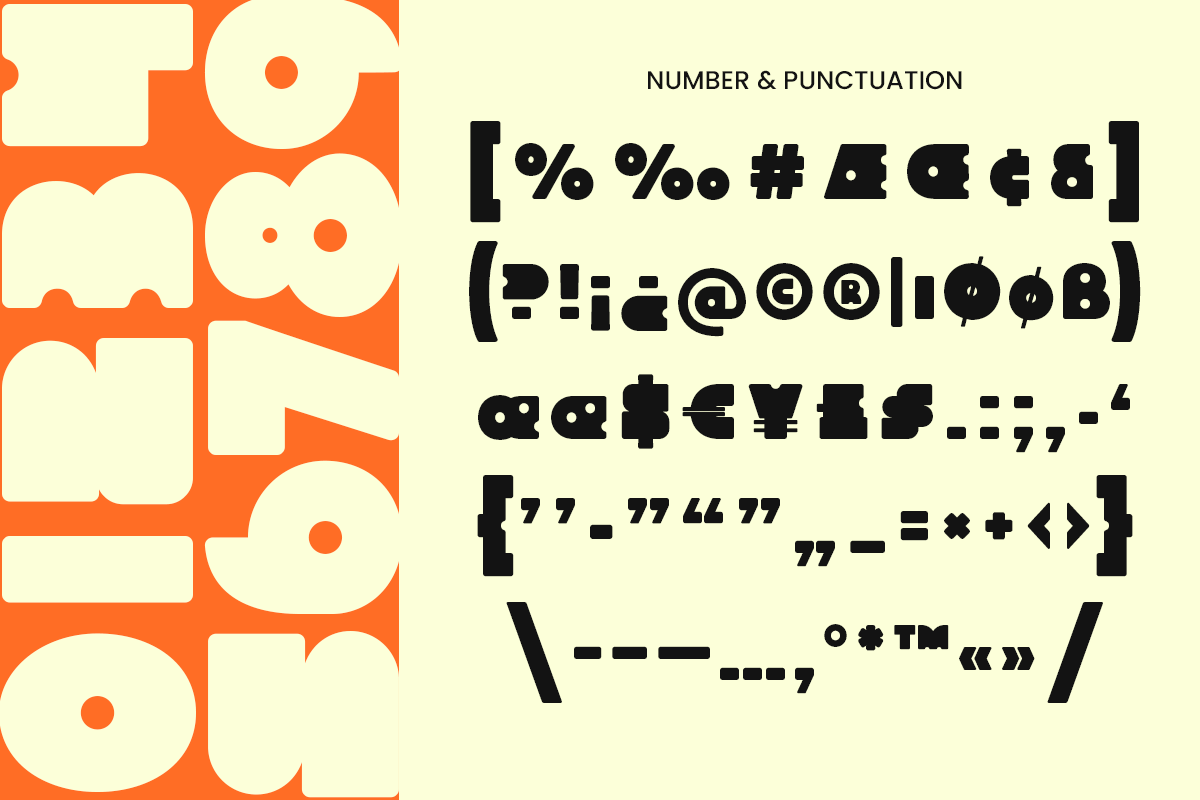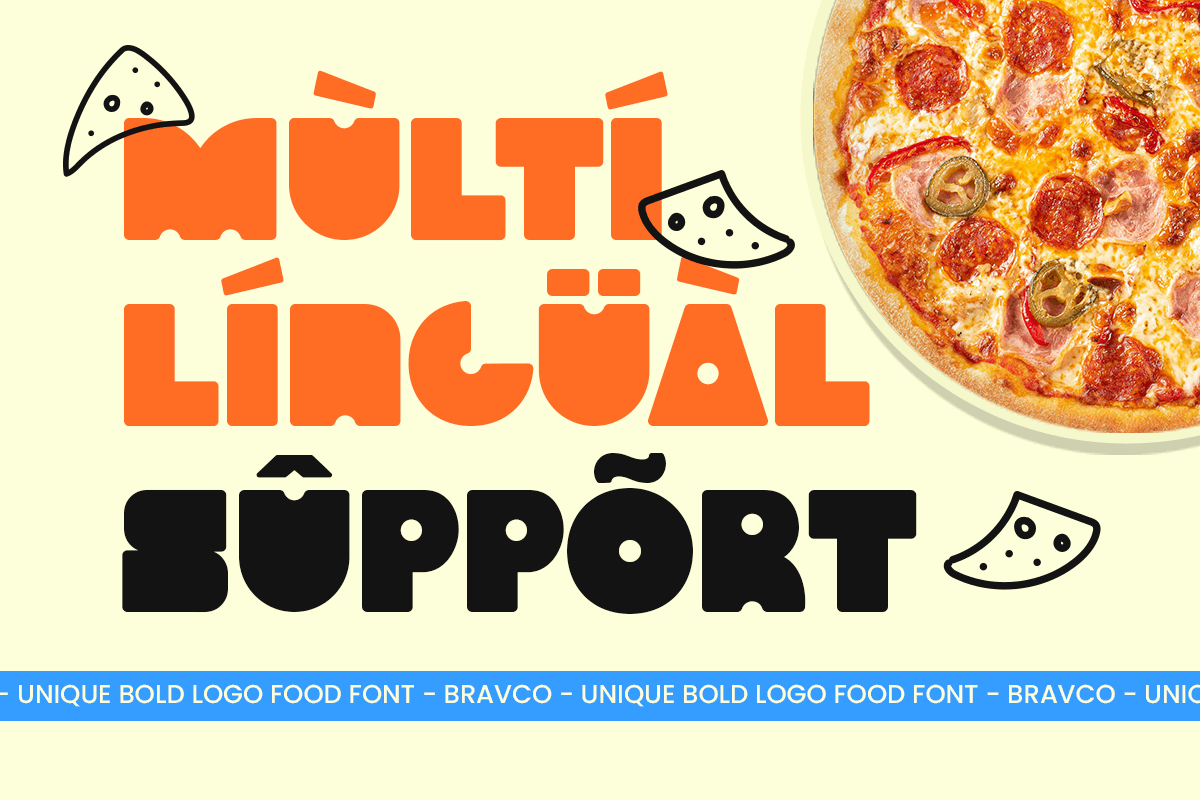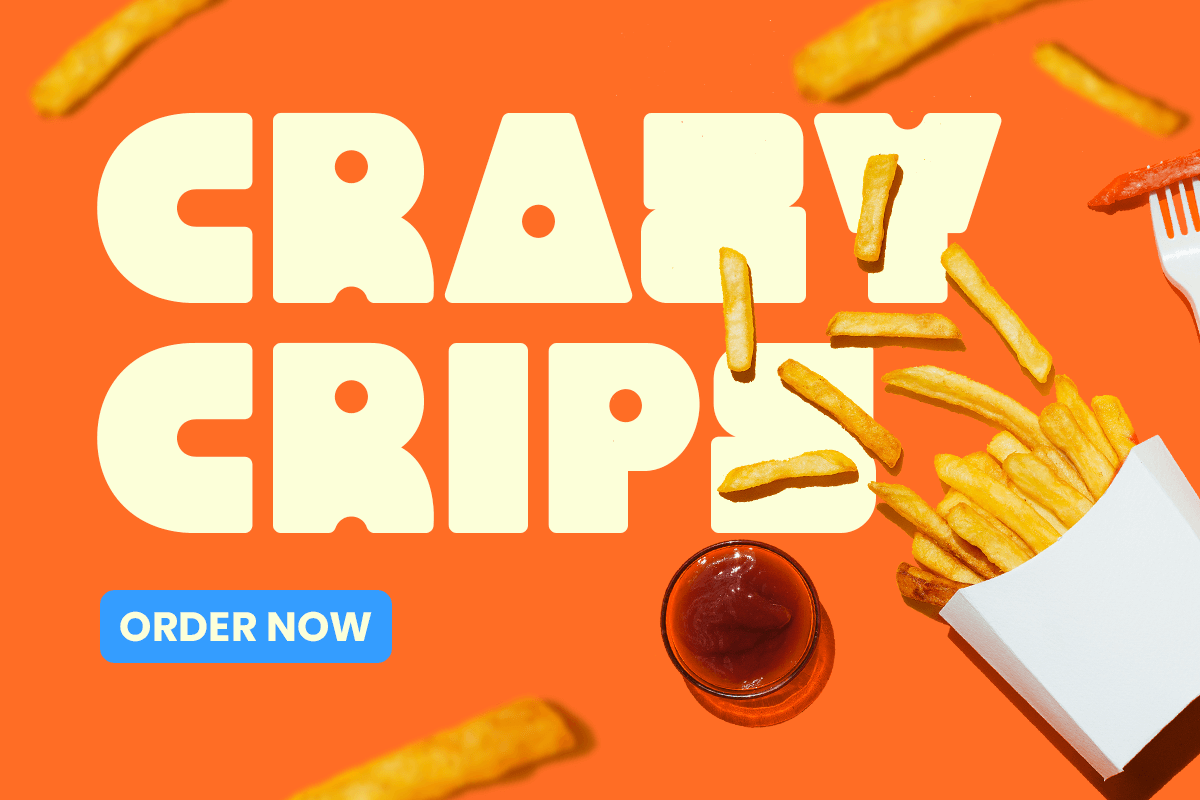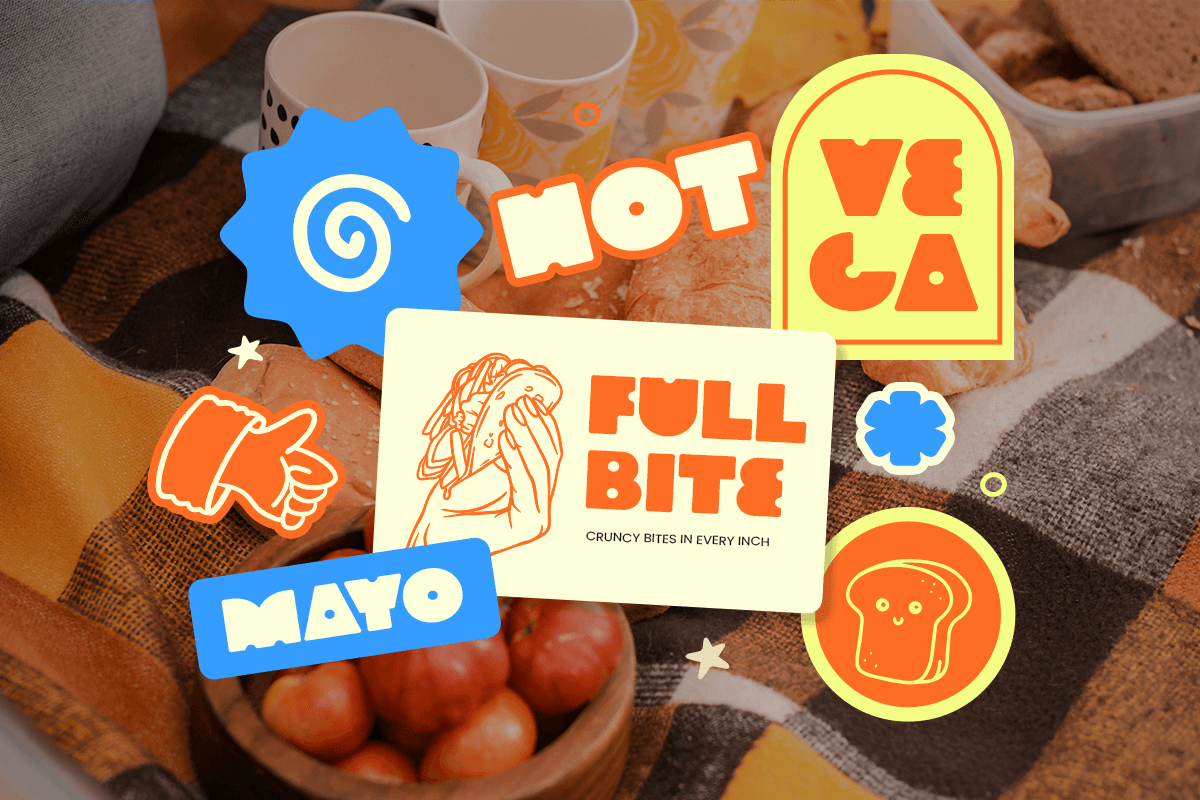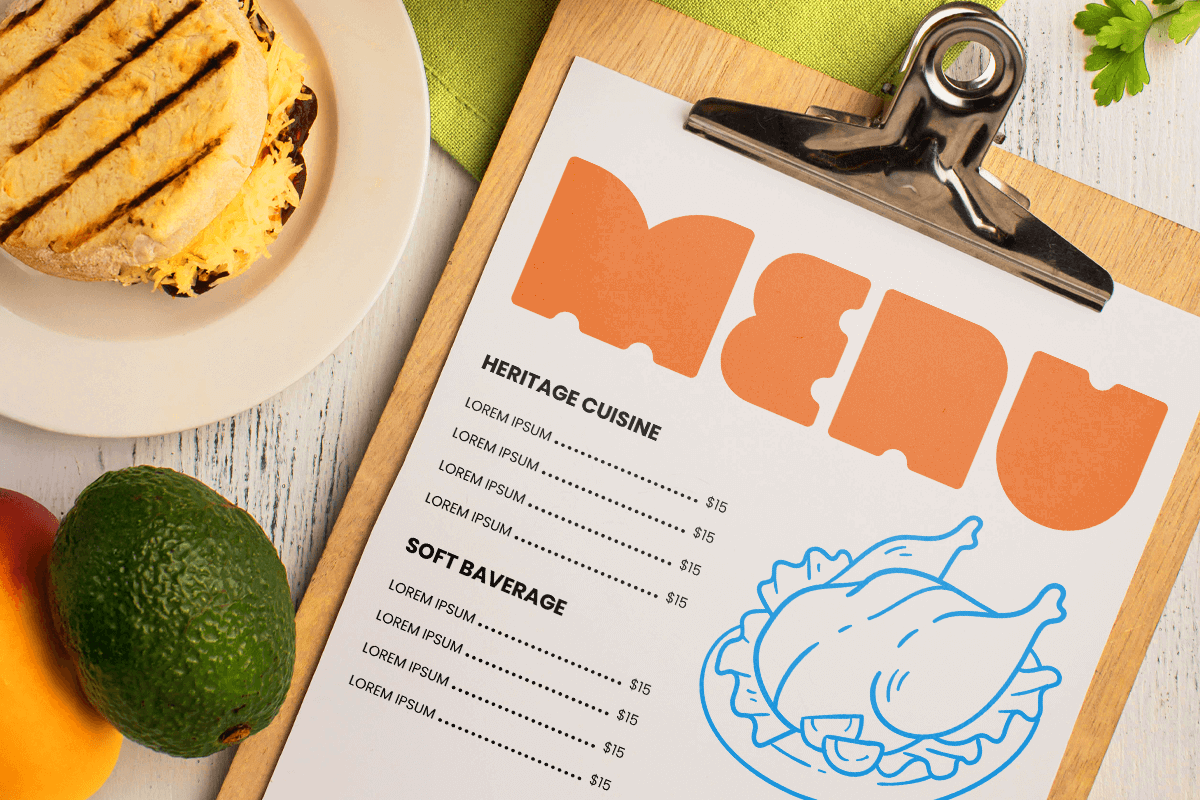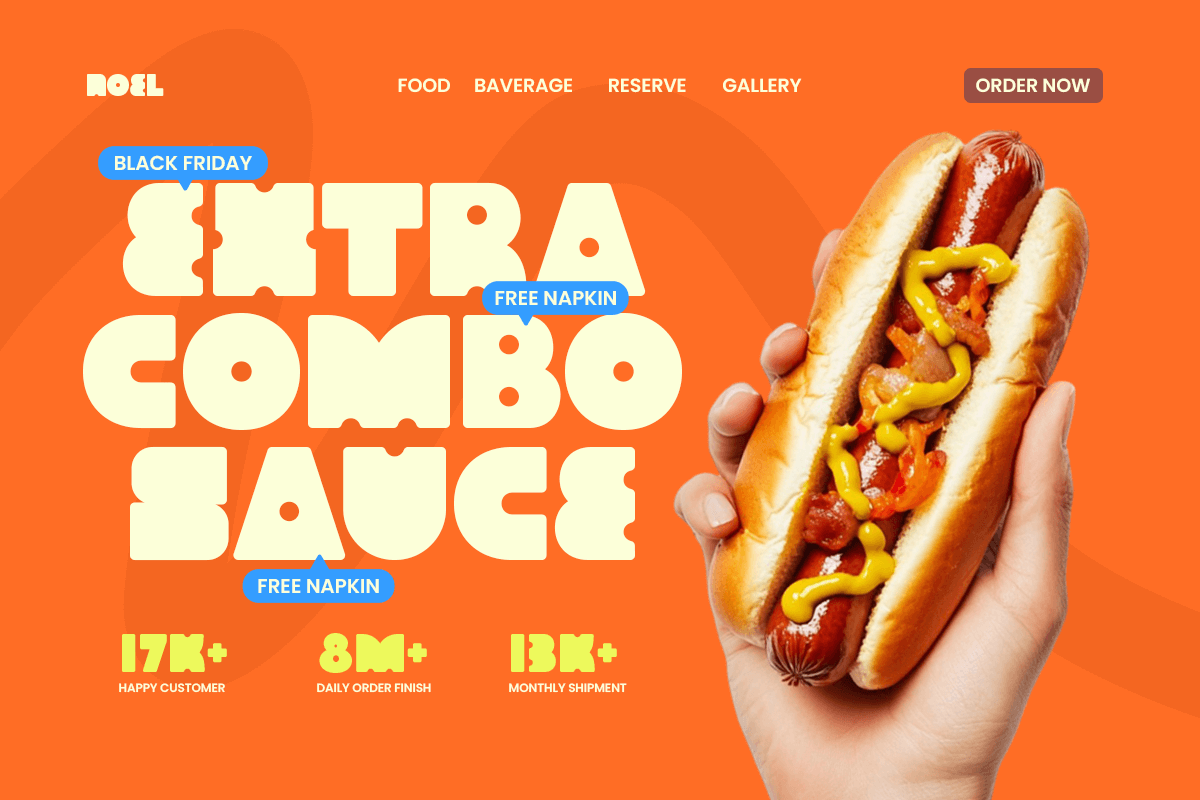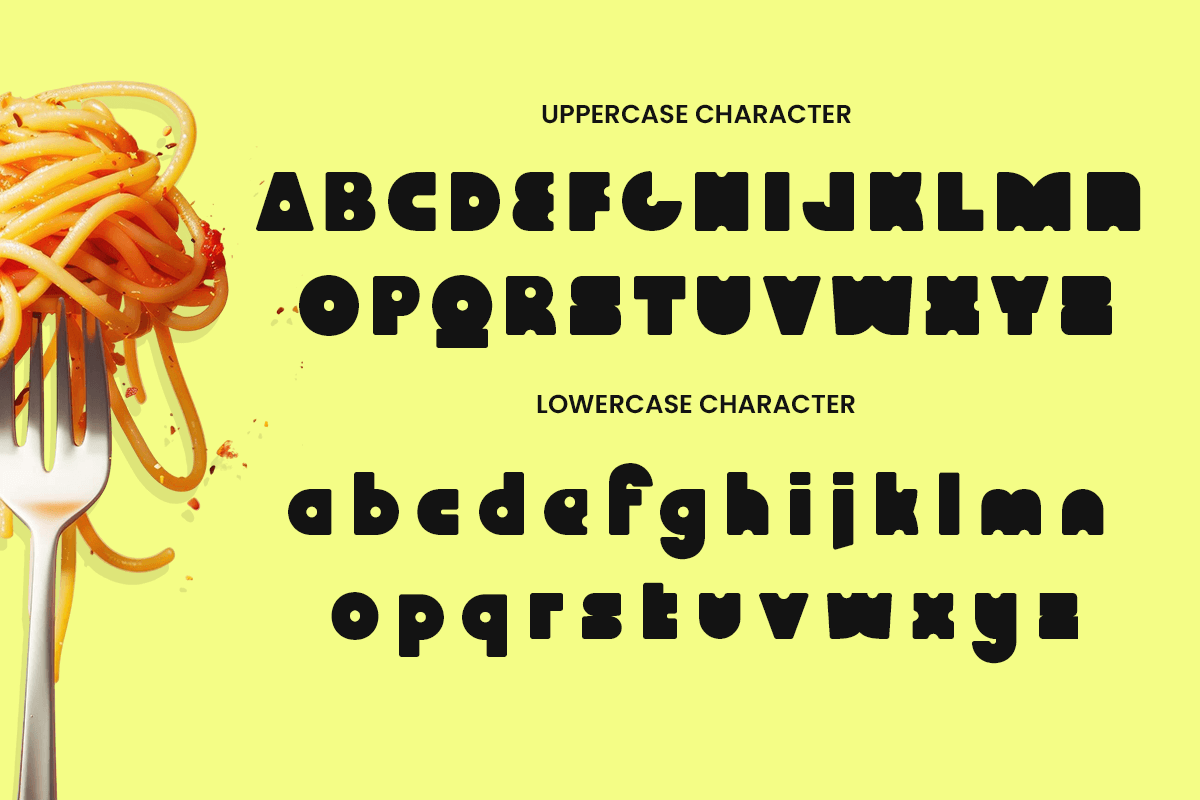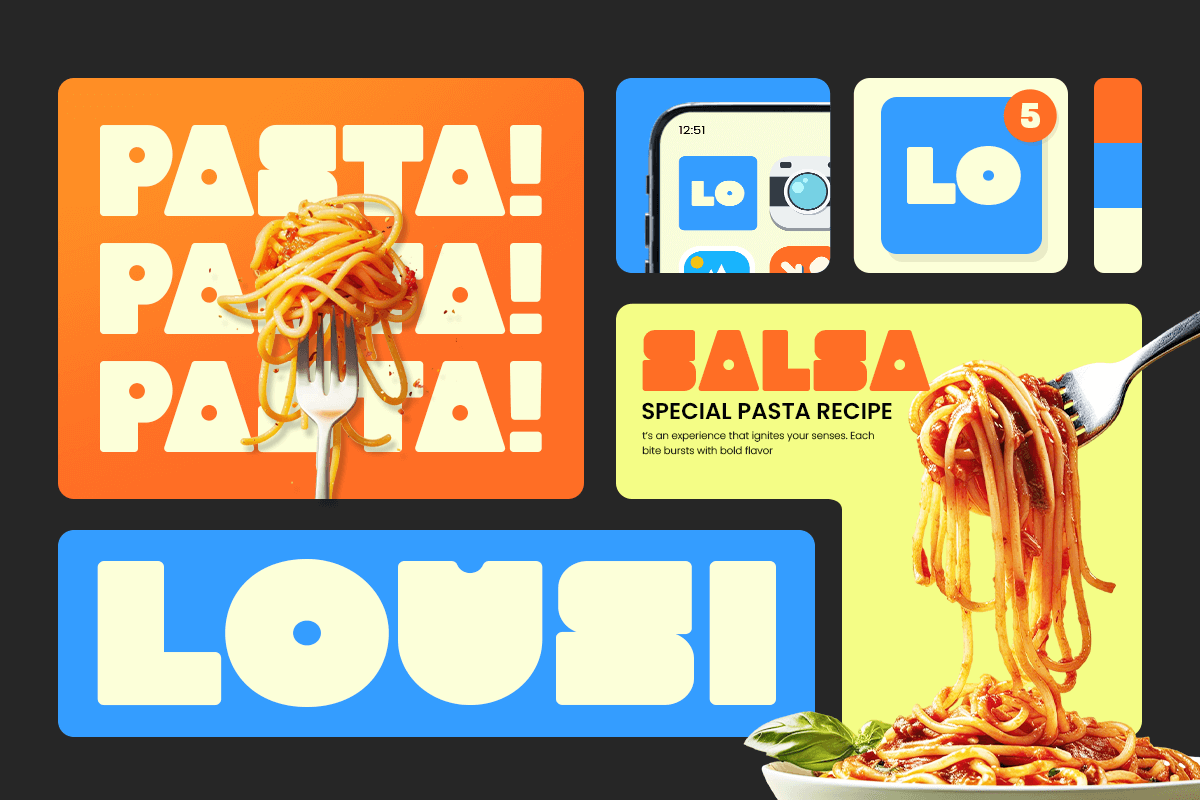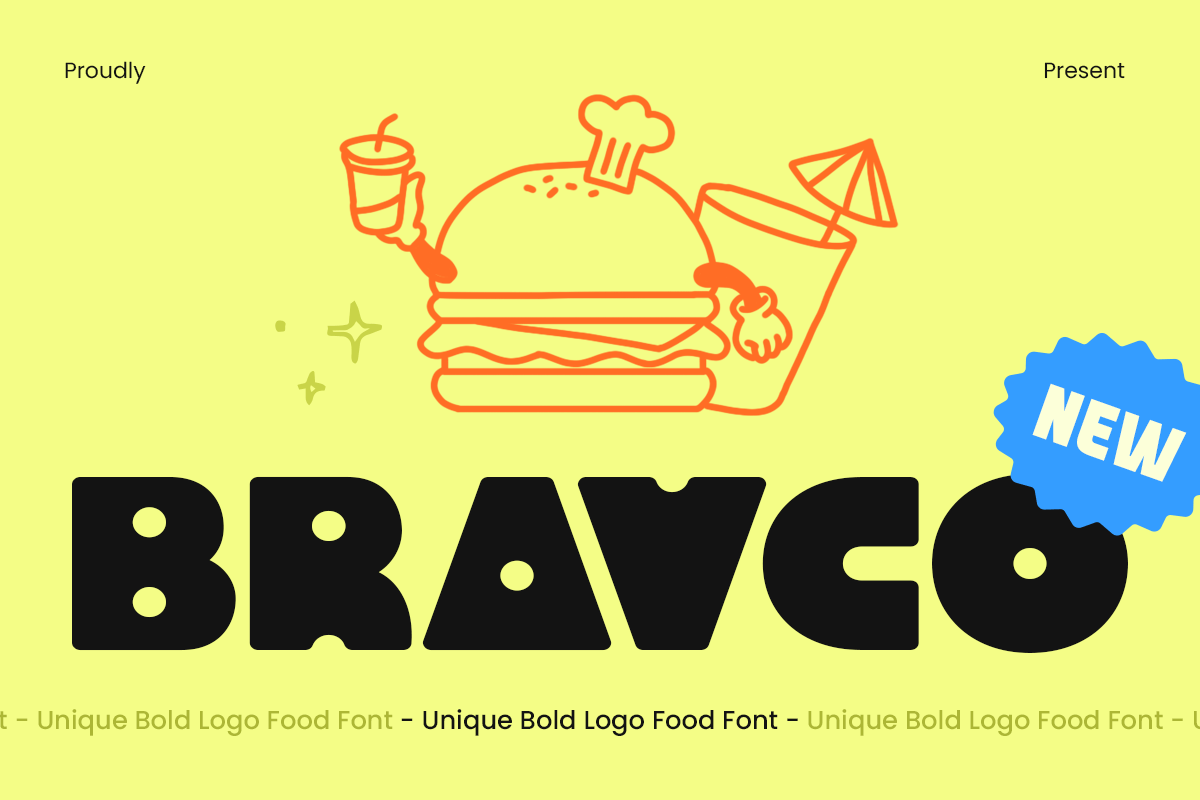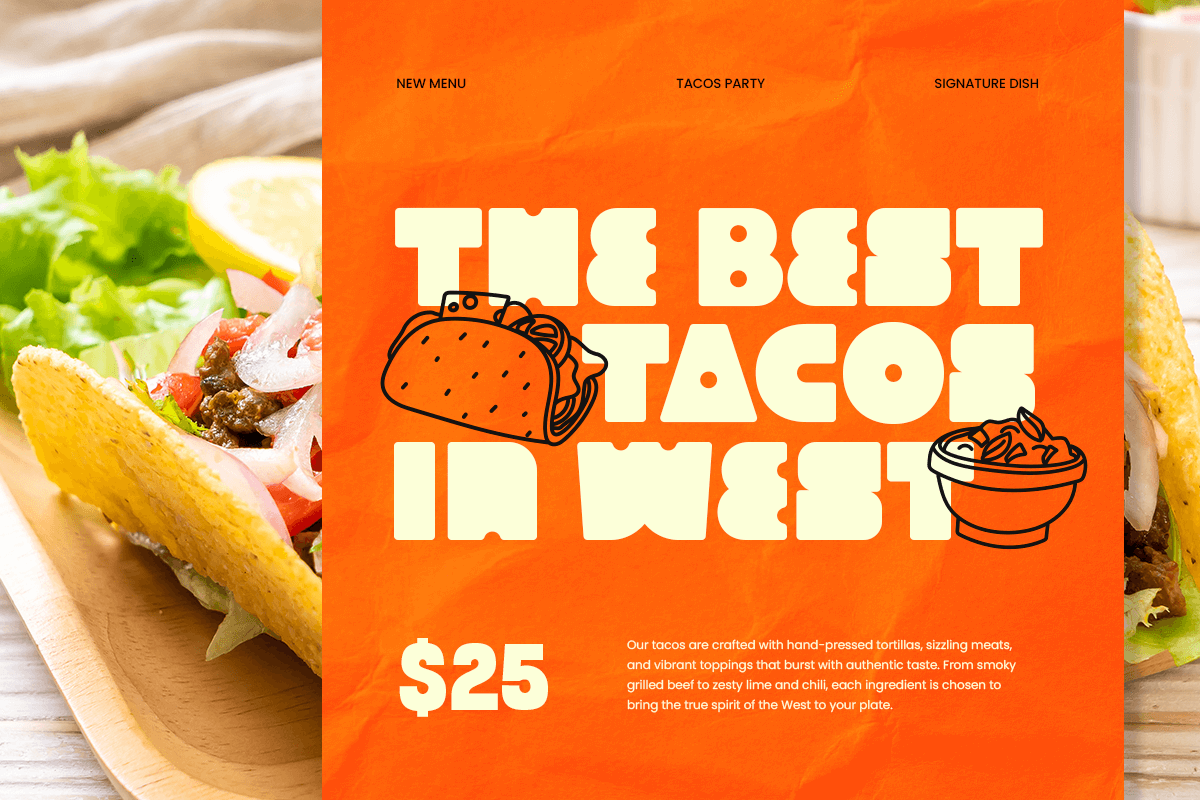
Bravco - Unique Bold Logo Food Font
BRAVCO is a unique bold logo food font designed to bring strong personality, energy, and visual impact to food-related branding projects. With bold letterforms, distinctive shapes, and a fun display style, this typeface is perfect for restaurant logos, cafe branding, food packaging, menu designs, product labels, and culinary campaigns.
Created for brands that want to look memorable and appetizing, BRAVCO combines a powerful display presence with a friendly and creative character. Its unique forms help food brands stand out while creating a strong visual identity across various applications.
Whether used for burger shops, snack brands, beverage packaging, bakery identities, street food businesses, or modern culinary products, BRAVCO delivers a bold and engaging typographic style for both print and digital media.
BRAVCO – Unique Bold Logo Food Font Features
Bold display design with strong food branding appeal
Perfect for restaurant logos, packaging, menus, and product labels
Unique letterforms with playful and memorable character
Ideal for cafes, restaurants, snacks, beverages, and culinary brands
Uppercase, lowercase, numerals, and punctuation included
OpenType features for enhanced typographic flexibility
Multilingual support for Afrikaans, Albanian, Asu, Basque, Bemba, Bena, Breton, Chiga, Cornish, Dutch, English, Estonian, Filipino, Finnish, Friulian, Galician, German, Gusii, Indonesian, Irish, Italian, Kabuverdianu, Kalenjin, Kinyarwanda, Luo, Luxembourgish, Luyia, Machame, Makhuwa-Meetto, Makonde, Malagasy, Manx, Morisyen, North Ndebele, Nyankole, Oromo, Portuguese, Quechua, Romansh, Rombo, Rundi, Rwa, Samburu, Sango, Sangu, Scottish Gaelic, Sena, Shambala, Shona, Soga, Somali, Spanish, Swahili, Swedish, Swiss, and more.